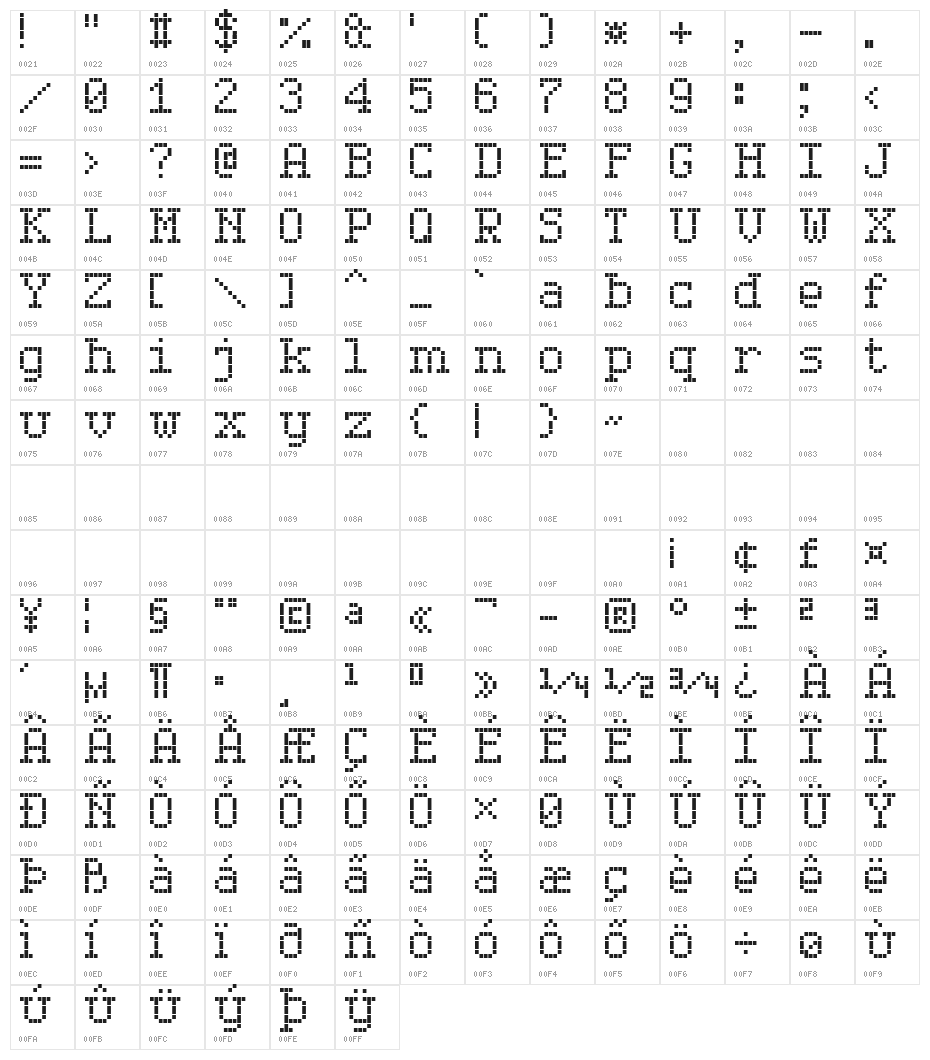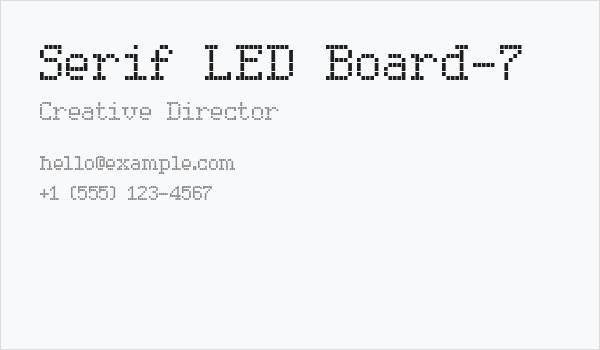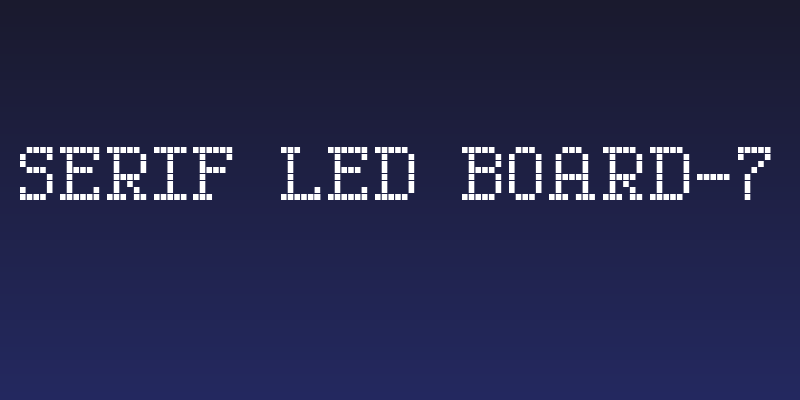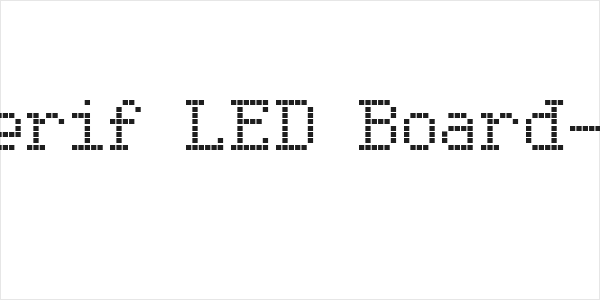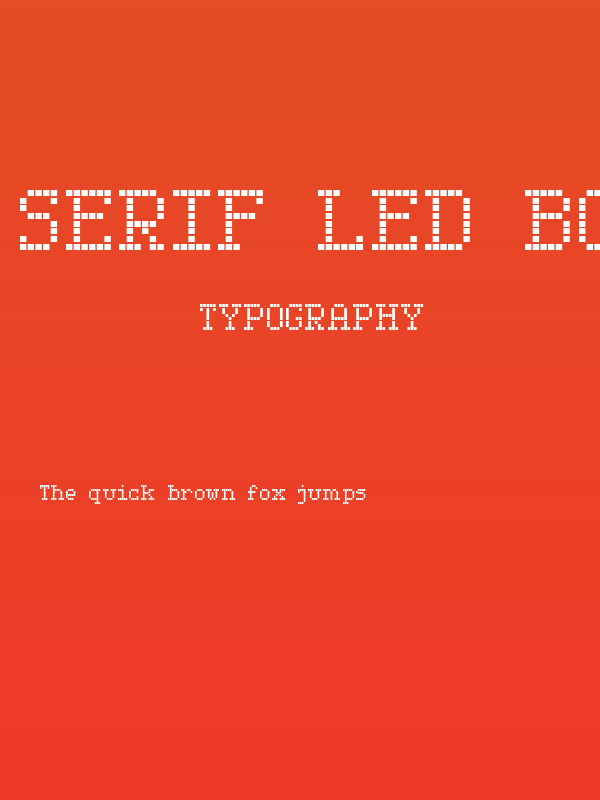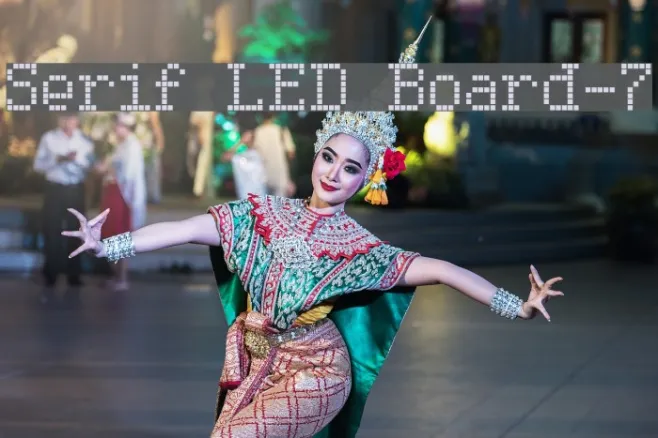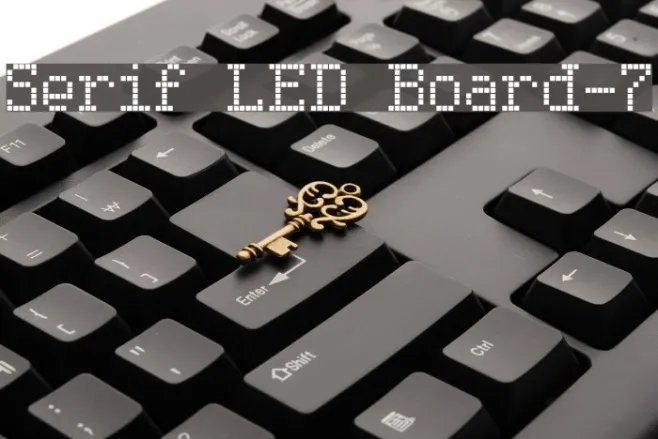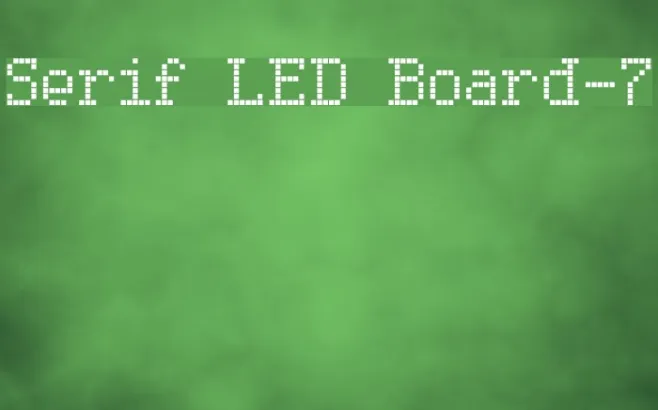
Serif LED Board-7 Font
Serif LED Board-7 Description
This font features a unique design that mimics the appearance of LED displays. Each character is composed of small, evenly spaced square dots, creating a digital and modern aesthetic. The uppercase and lowercase letters maintain a consistent structure, with clear differentiation between each character. Numbers and special characters follow the same dot matrix style, ensuring uniformity across the font. The design is reminiscent of retro digital displays, making it suitable for projects that require a technological or futuristic theme. The font's pixelated style gives it a distinctive look that stands out, especially in digital and electronic contexts.
| Proposed Projects | Ideal for digital displays, tech-themed posters, video game graphics, and retro-futuristic designs. |